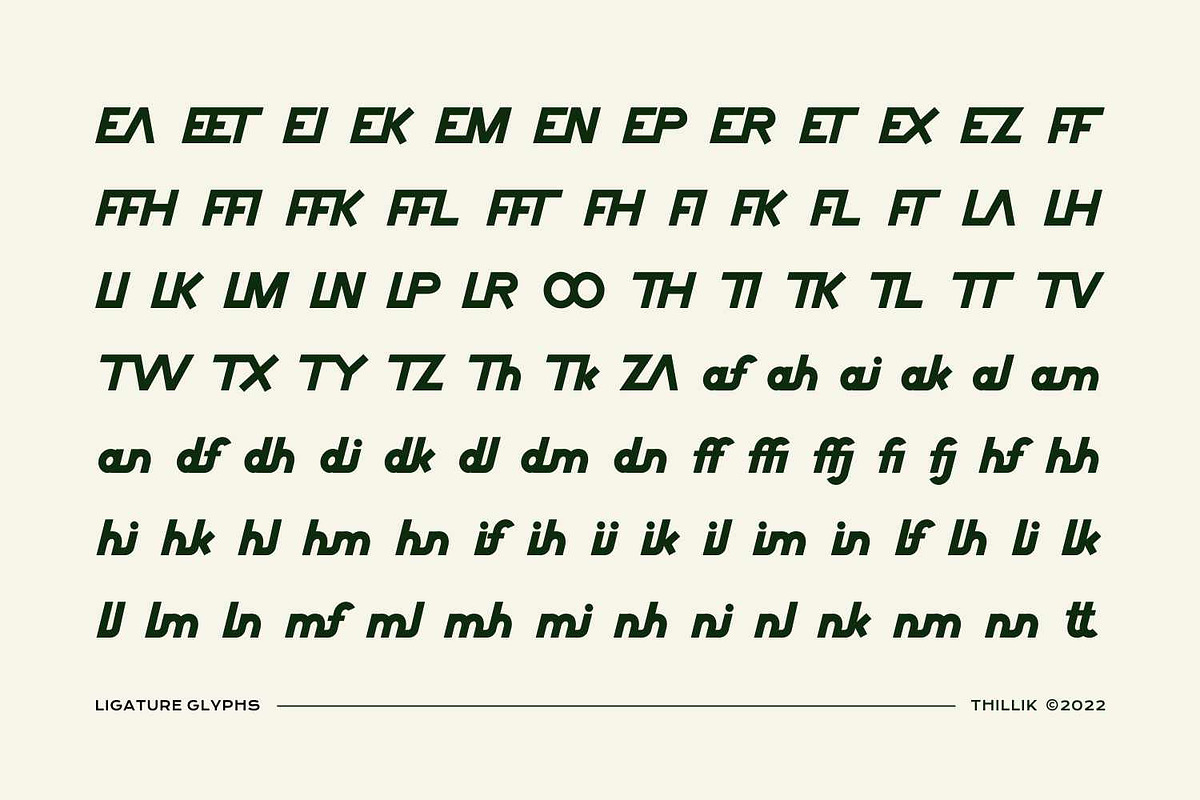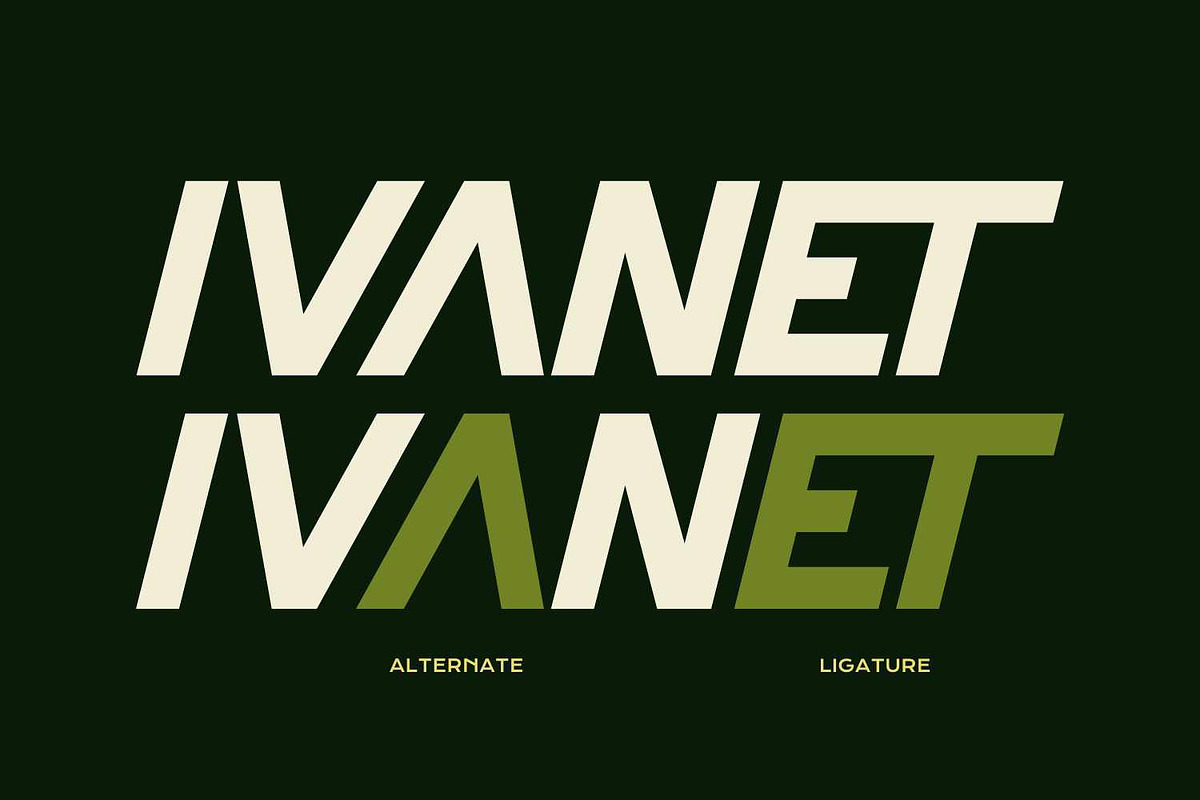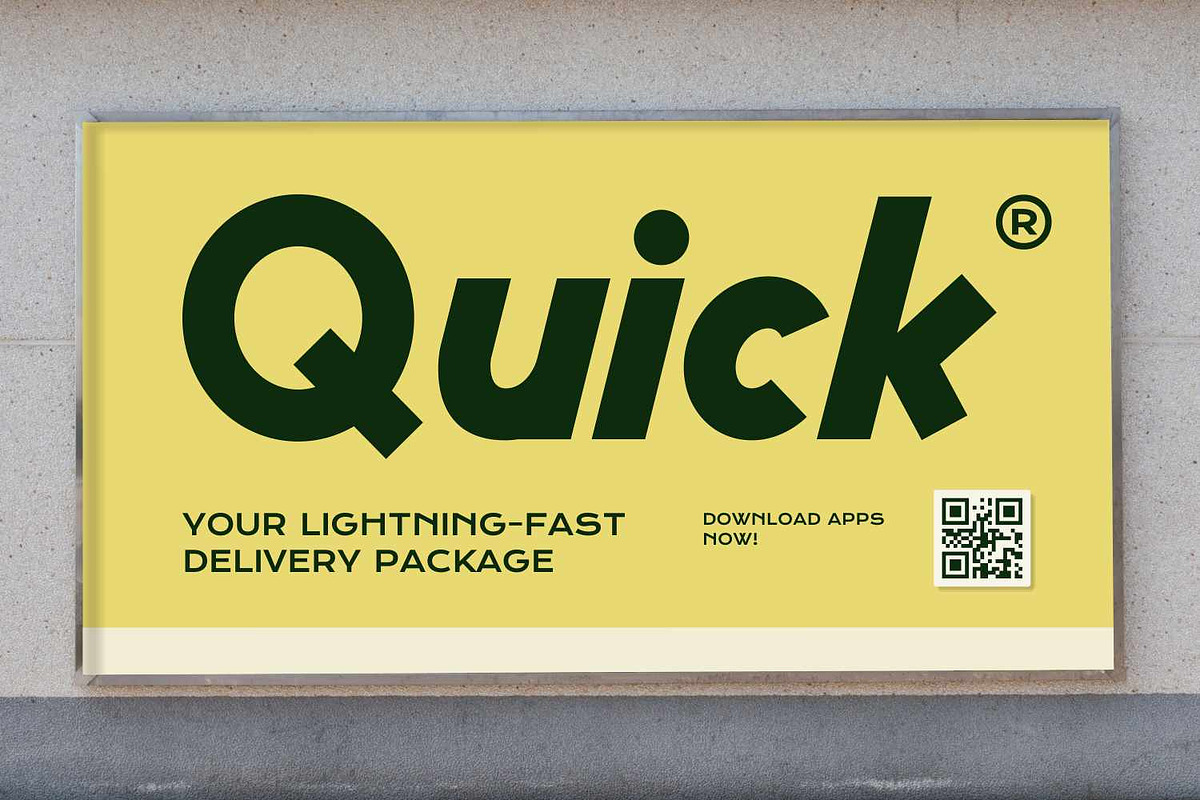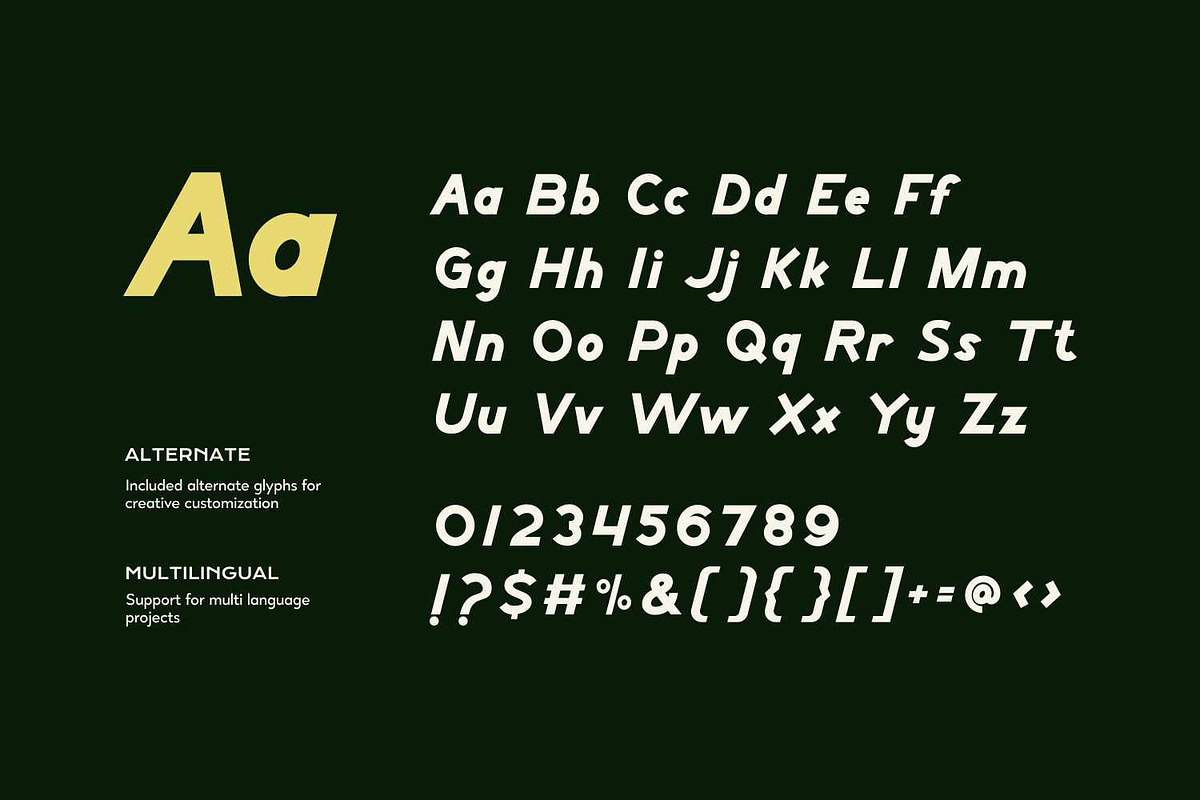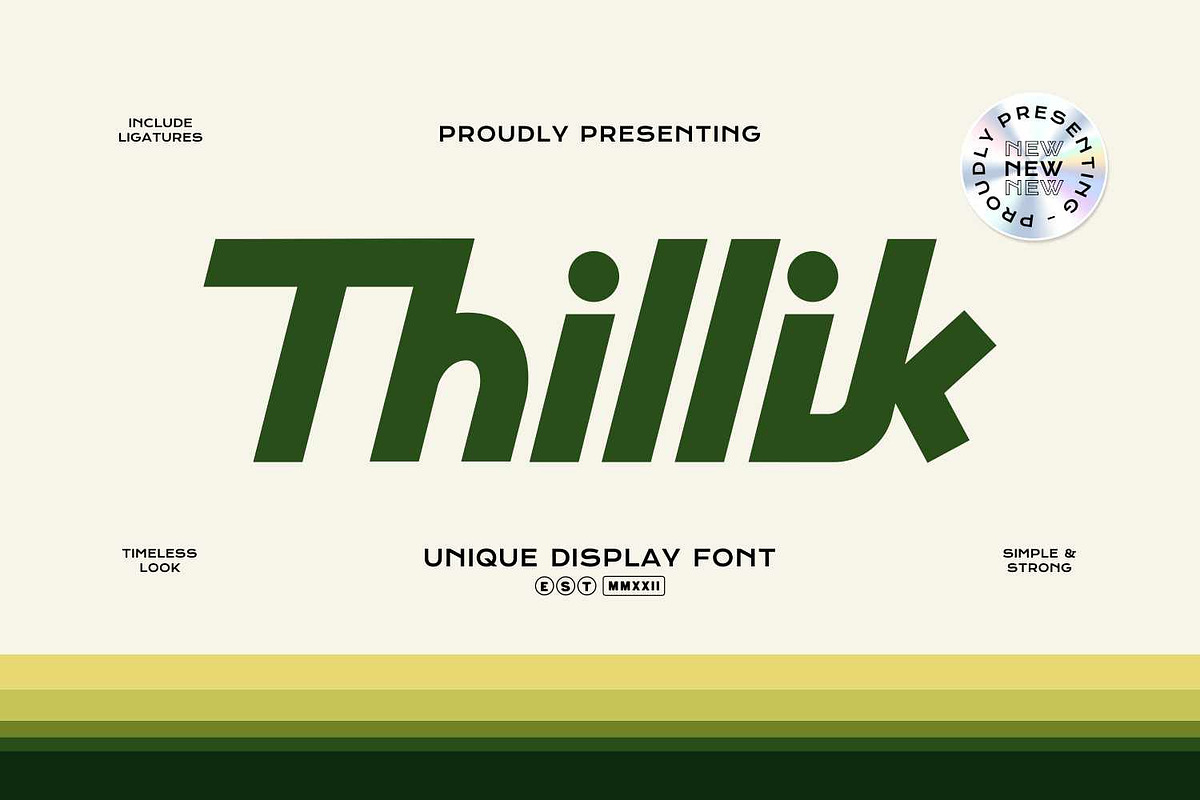
Thillik
Thillik is a display font with visual elegance, smooth curves, and beautiful ligatures clear, making your work look true and attractive.
A very versatile font that works in both large and small sizes. This font is suitable for a wide variety of projects such as invitations, logos, branding, magazine, photography, card, product packaging, mugs, quotes, poster, labels, signatures, and more.
Font which is perfect for all business sectors including personal projects, studio, corporate, creative agency, industrial, company, etc.
- Punctuation, Number, and Symbol
- Multilingual Support ÀÁÂÃÄÅÆÇÈÉÊËÌÍÎÏÐÑÒÓÔÕÖØÙÚÛÜÝ